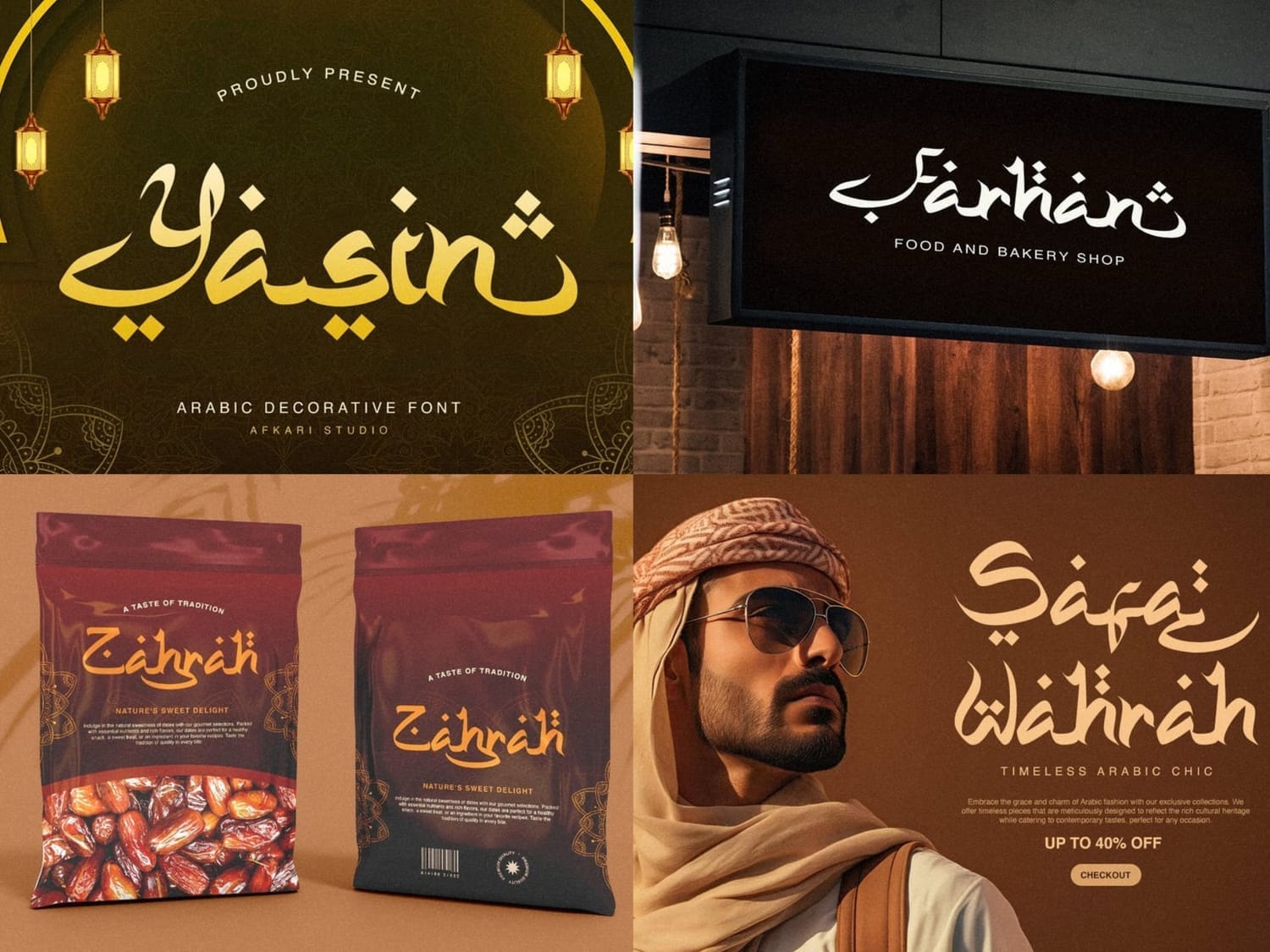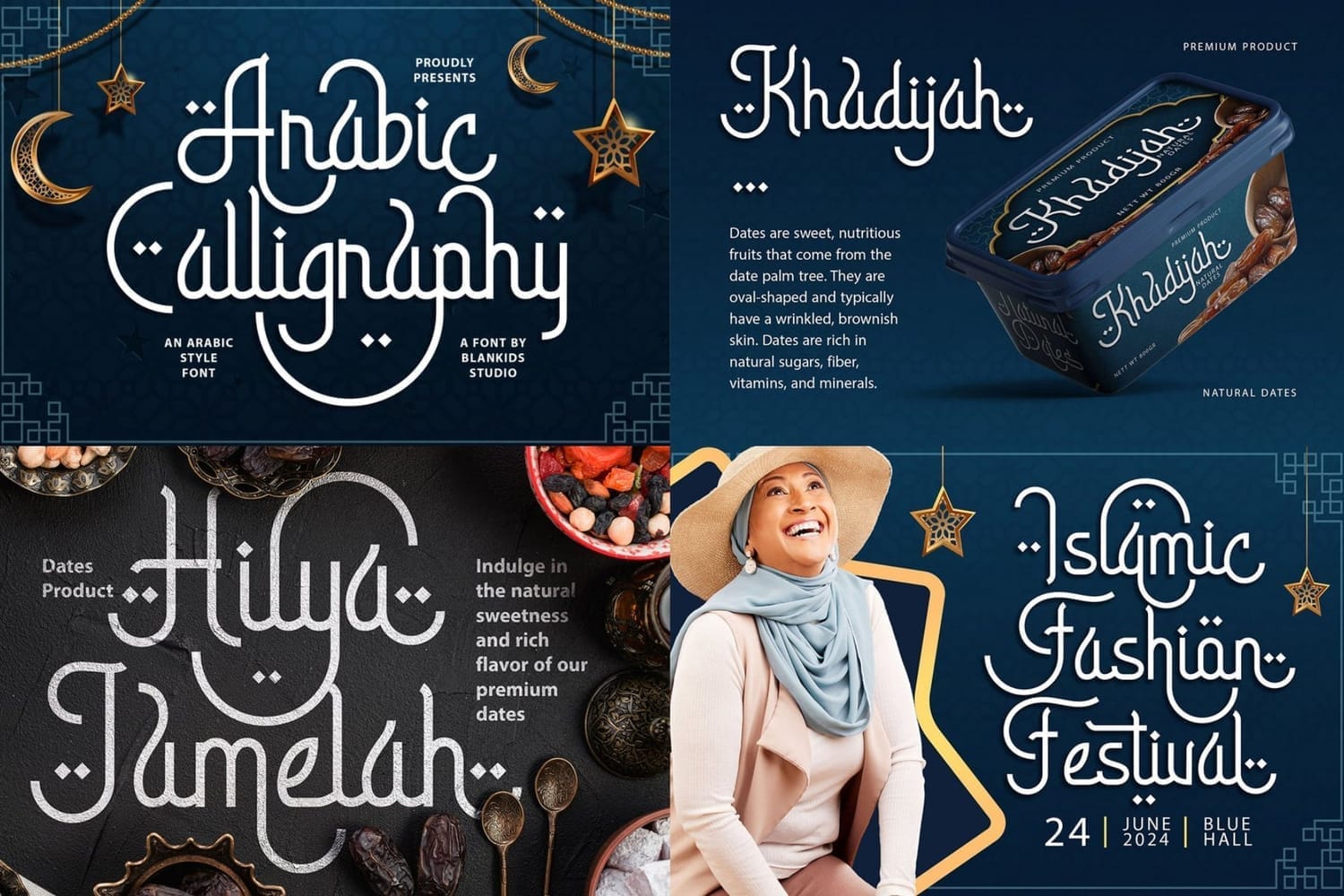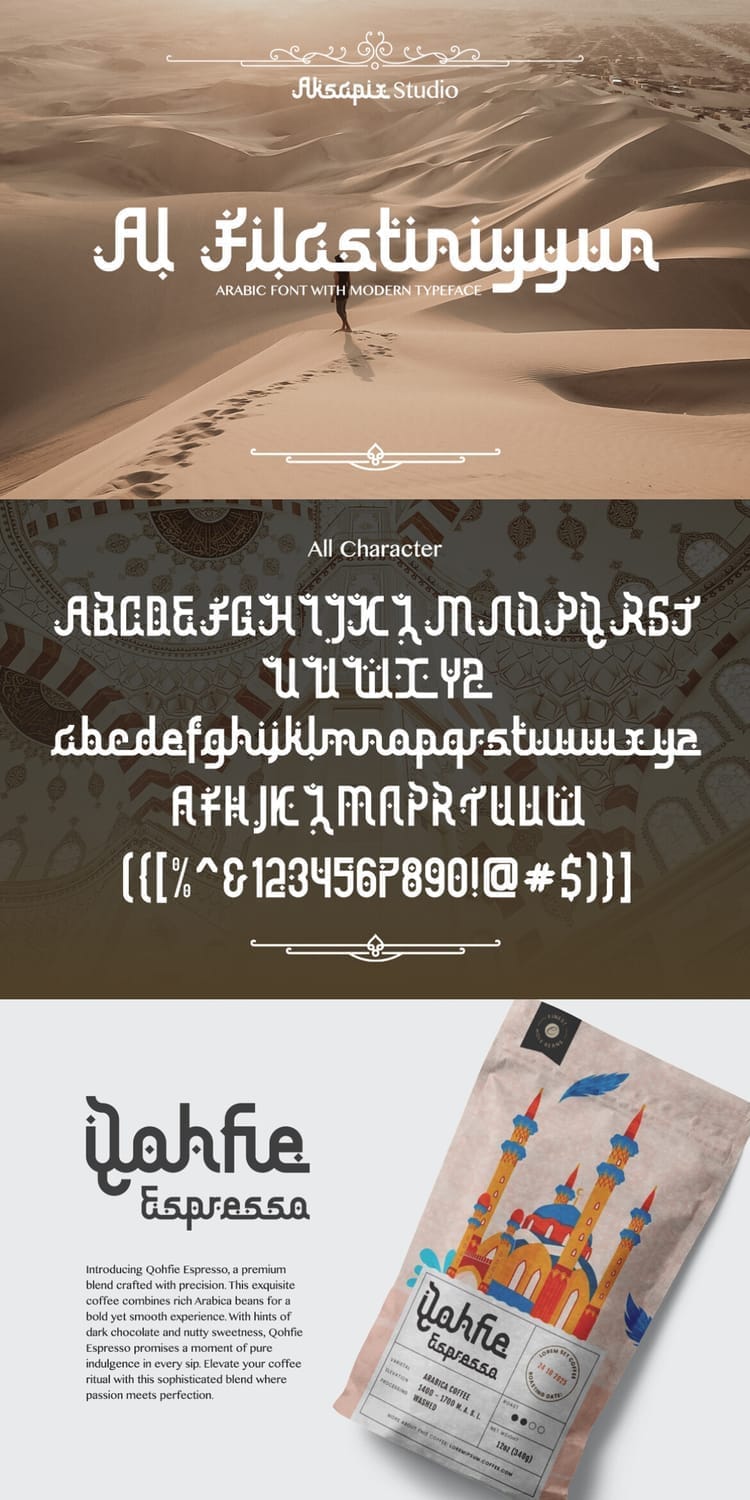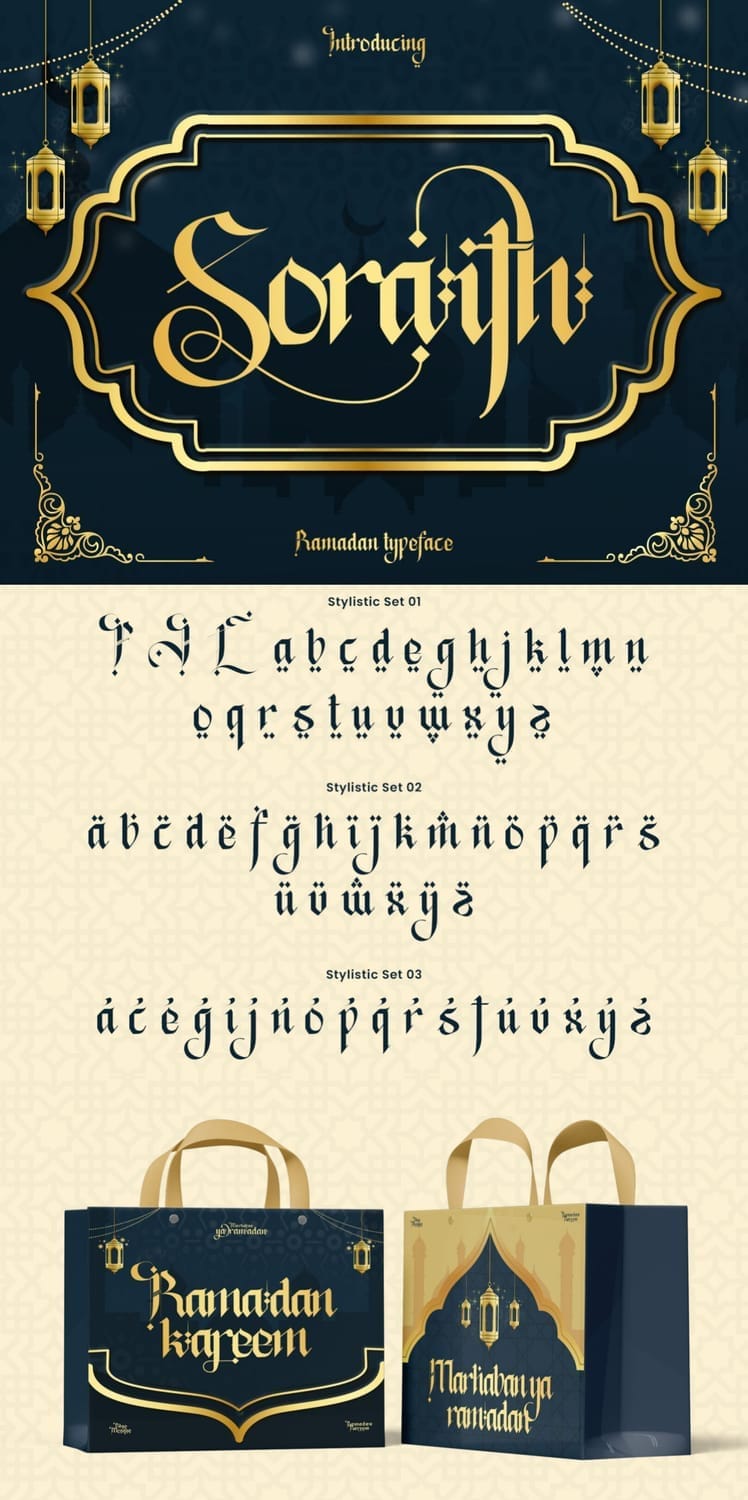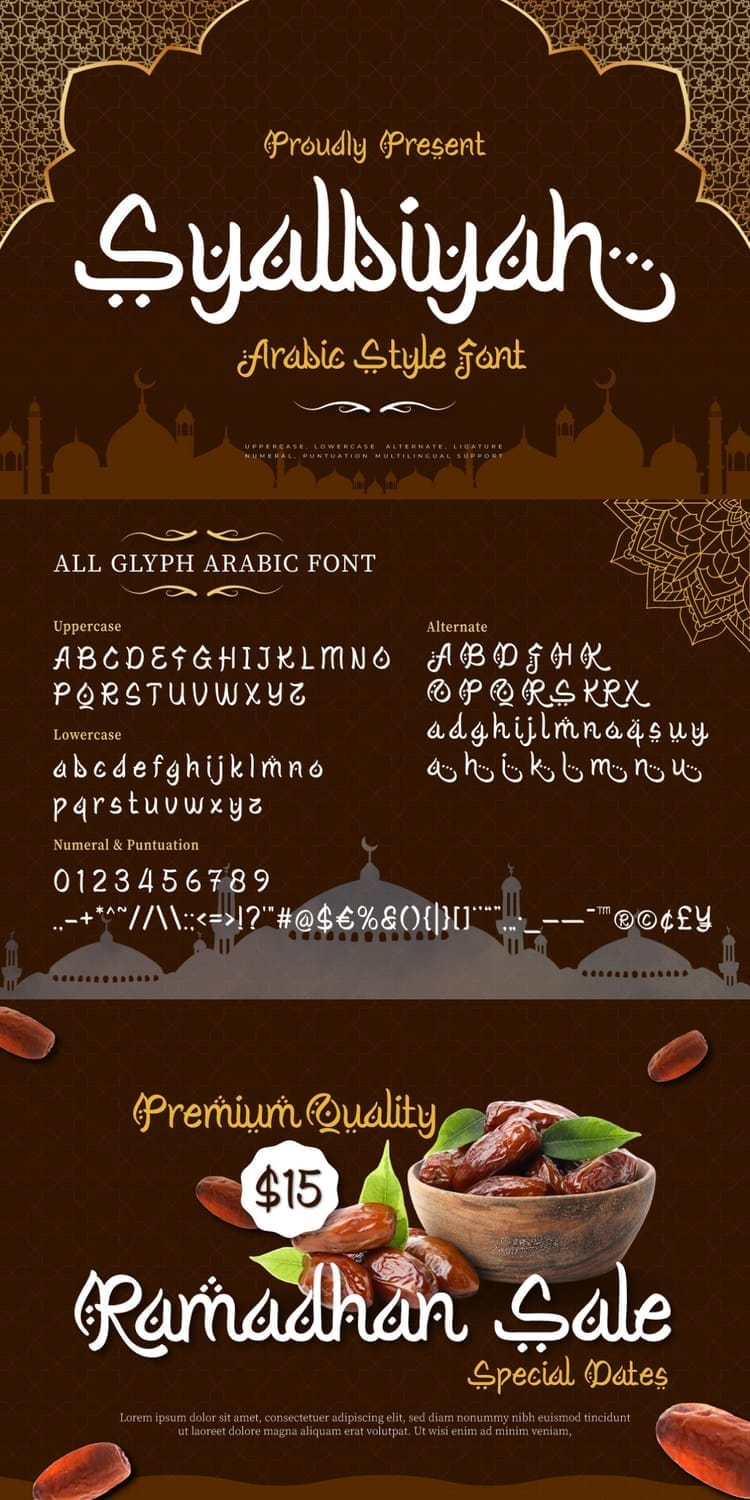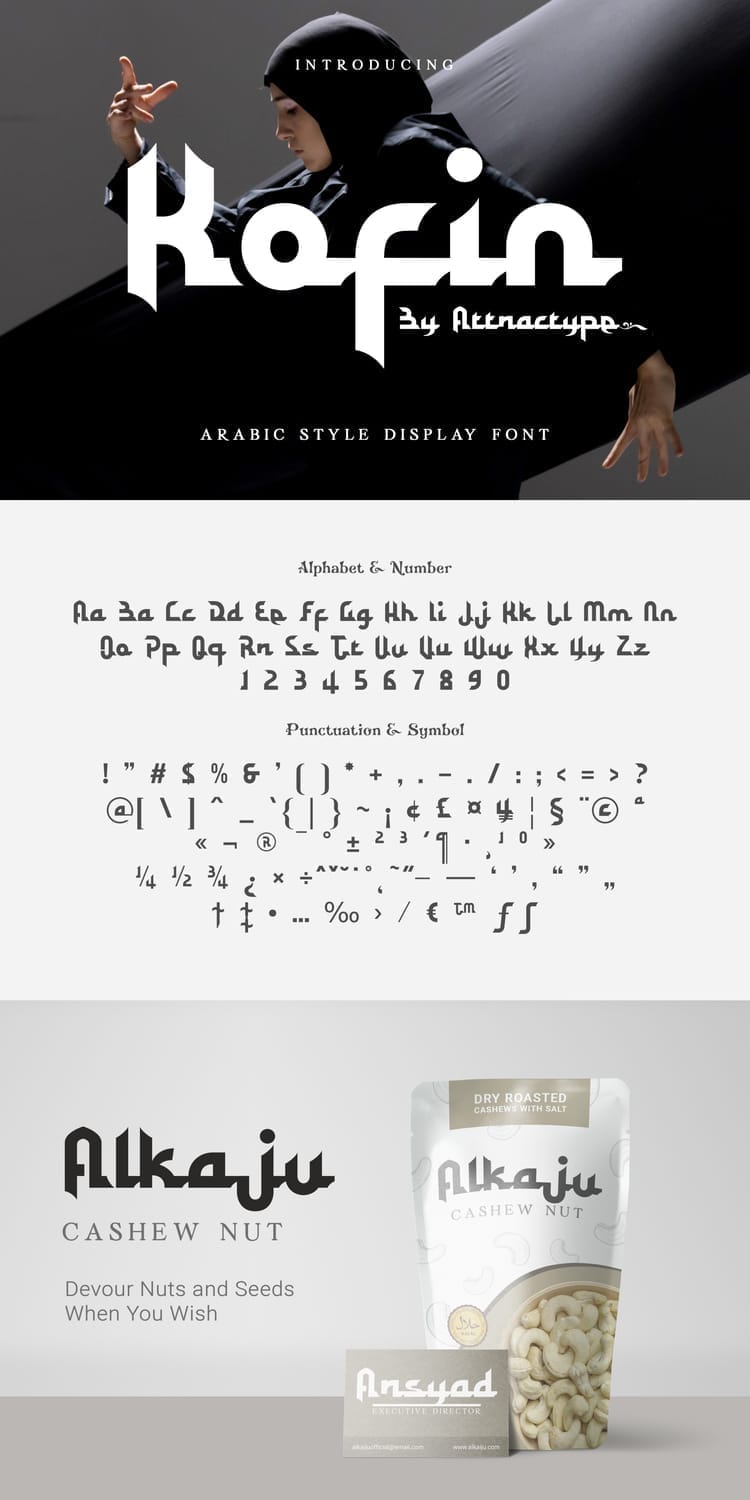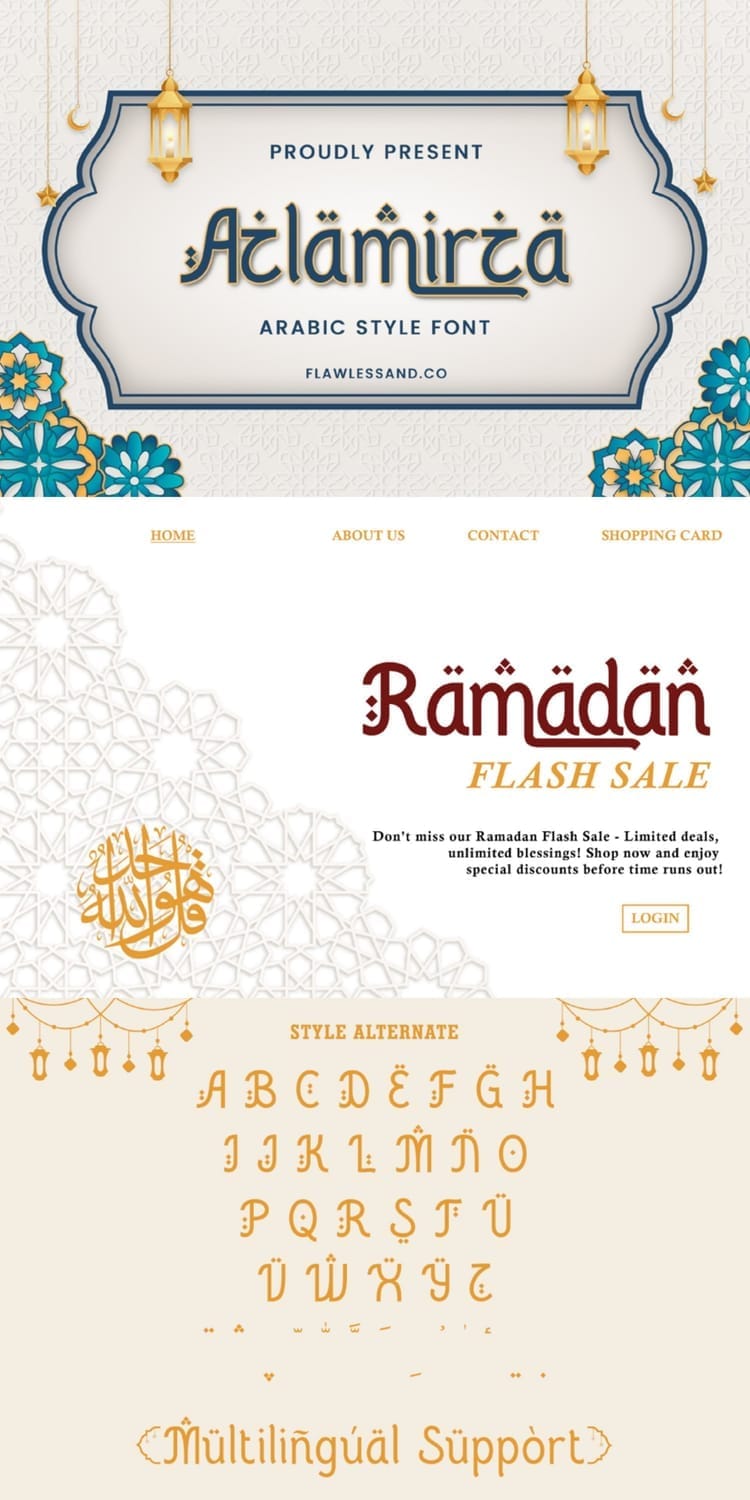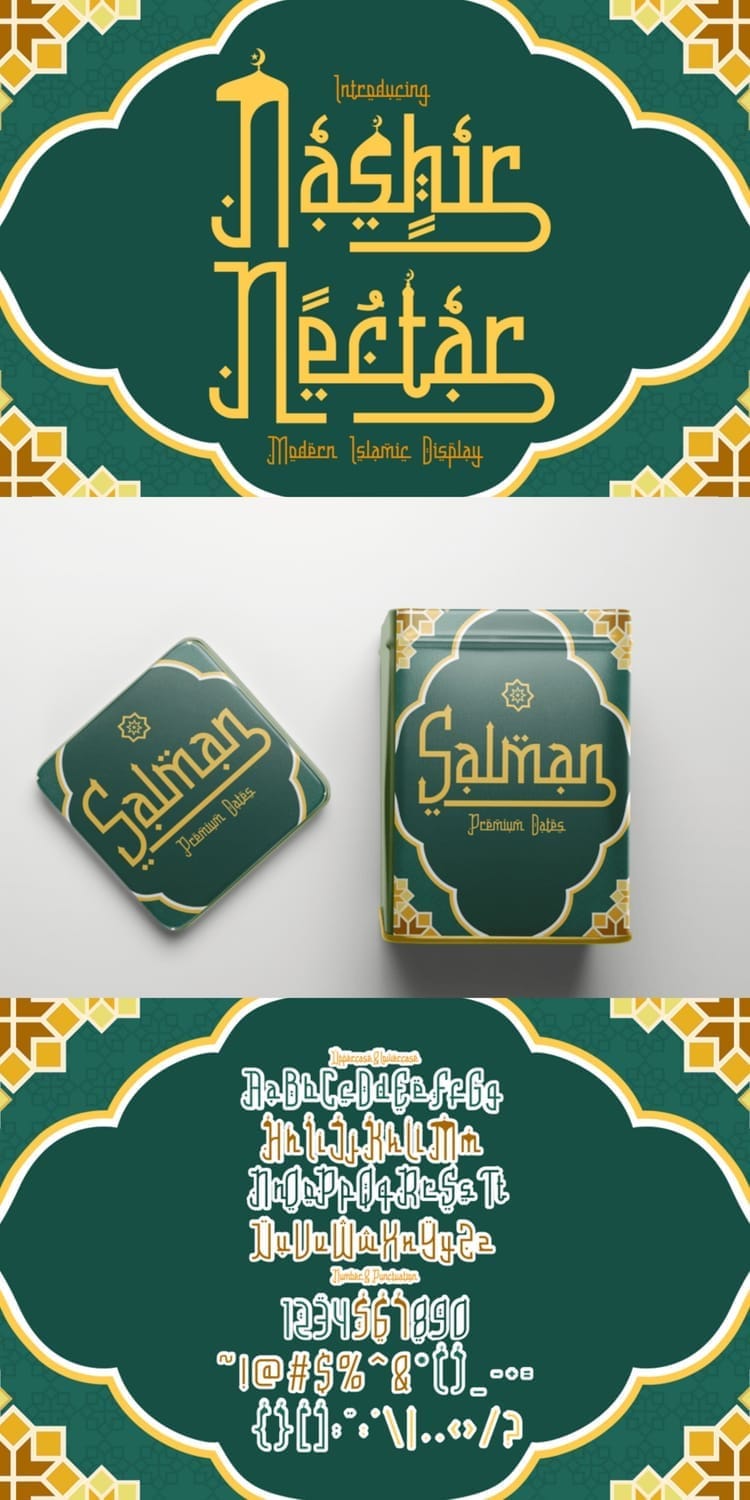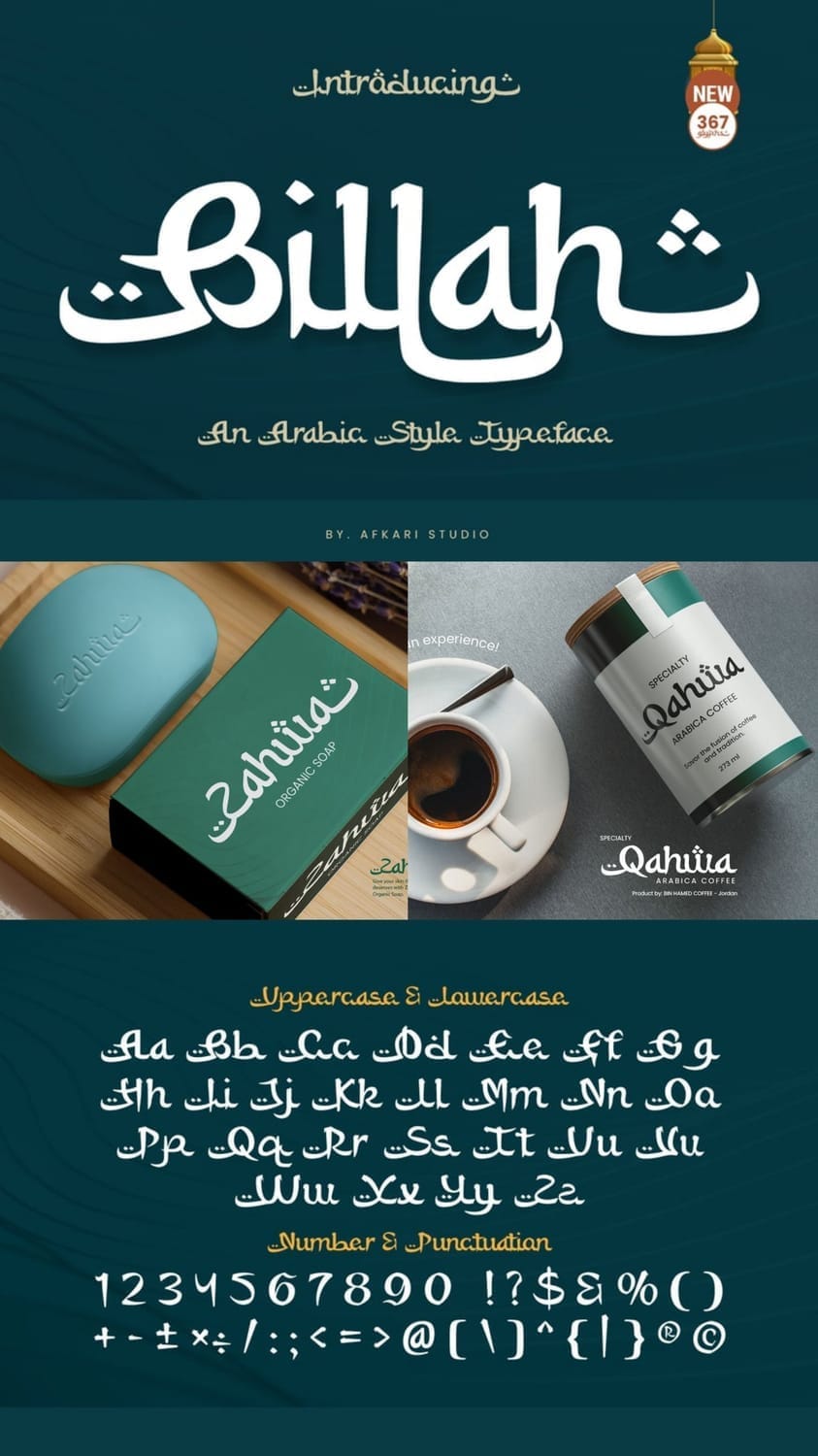
Arabic typography is a rich and diverse field, offering a unique blend of traditional elegance and modern versatility. For designers looking to infuse their projects with cultural authenticity and artistic flair, selecting the right Arabic font is crucial. These fonts are more than just aesthetic choices; they convey cultural nuances, historical depth, and a sense of timeless beauty that resonates deeply with audiences across various sectors.
Whether you're in branding, advertising, publishing, or web design, incorporating authentic Arabic styles can significantly enhance your visual communication and connect with a broader demographic. In this post, we'll provide thirteen examples of Arabic fonts and why they are so emblematic of the elegance and versatility found within Arabic typography.
Almalik is a unique, Arabic-style font by Ramzehhh, blending traditional Arabic letters with Latin typography in a modern monoline script. This elegant font features dynamic swashes, over 400 glyphs including alternates and ligatures, and multilingual support, making it ideal for branding, logo design, packaging, fashion, and Islamic-themed projects like Ramadan or Eid greetings. Its versatile design offers a sophisticated Middle Eastern aesthetic perfect for luxury and promotional materials.
Mustopha is a sophisticated Arabic-style font by Ramzehhh, expertly blending Latin classic handwriting with Arabic "hijaiyah" letters and Carolingian typography. This elegant cursive script offers a humanism feel with decorative long swashes and an extra set of alternate characters and Arabic symbols. Ideal for luxury branding, posters, greeting cards, wedding invitations, cosmetic labels, and book covers, Mustopha brings a timeless, classic typography aesthetic to diverse design themes, from Islamic art to general promotional materials.
The Khodijah font by Ramzehhh is a captivating Arabic-style display font crafted with a unique blend of digital flat-pen and gothic typography techniques, imbuing its letters with an elegant aesthetic. Inspired by Hijaiyah letters, this font is highly suitable for a wide range of Islamic and Middle Eastern content, including book covers, posters, flyers, banners, t-shirts, logos, and branding. Khodijah boasts robust OpenType features such as alternates, swashes, and ligatures, enhancing its versatility for various advertising and promotional needs, including Ramadan and wedding themes.
Saleha by Afkari Studio is a new Arabic-style display typeface perfect for Ramadan and other Islamic or Arabic-themed graphic designs. This font provides an authentic Arabic feel using Latin characters, making it internationally accessible. With uppercase, lowercase, numbers, punctuation, special alternates, and ligatures, Saleha is highly versatile for branding, product packaging, quotes, flyers, posters, logotypes, apparel, book covers, and advertising. It's compatible with both PC & Mac and works seamlessly across major design software, including Adobe products and Microsoft Word, with multilingual support.
Kahlil by typefactoryco is a modern Arabic font inspired by Middle Eastern aesthetics but designed with simplicity for diverse applications. This well-balanced font includes stylistic sets, alternates, and ligatures, along with multilingual support. Perfect for creative titling on both web and print, Kahlil excels in scroll text, readable blocks of copy, and headings, making it ideal for logotypes, magazine layouts, menus, posters, wedding invitations, and travel logos, offering an elegant and luxurious feel.
Labaniy by typefactoryco is an Arabic display font inspired by traditional Arabic calligraphy, featuring graceful curves and intricate details. This versatile font, offering uppercase, lowercase, symbols, punctuation, numerals, ligatures, alternates, and multilingual support, adds a touch of cultural authenticity and timeless elegance to any design. Perfect for branding, editorial layouts, event invitations, and digital artworks, Labaniy ensures your projects stand out with mesmerizing beauty and a traditional flair.
Shalwa by AnxoDesign is a stylish, elegant, and futuristic Arabic-style display font perfect for a wide range of modern design projects. This versatile serif font is ideal for logo branding, photography watermarks, invitations, visiting cards, advertisements, product designs, stationery, wedding designs, labels, product packaging, and special events. With its unique Arabic influence, Shalwa adds a distinctive and contemporary touch to any creative endeavor.
Mahabbah by agnyhasya-studio is a stunning Arabic-style display typeface ideal for Ramadan and other Islamic event design projects. This versatile font features unique alternates and ligatures for captivating typography, and offers multilingual support. It's perfect for logos, advertising, branding, posters, banners, product designs, art quotes, special events, and product packaging, enhancing any project with an authentic Arabic and calligraphic aesthetic.
Arabian Fairs by Saridezra is a delicate and minimalist Fauxlang Arabic font, meticulously inspired by the Arabic alphabet. This light and elegant typeface offers a distinct Arabian feel while remaining highly readable for all. It's versatile for various design purposes, including branding, logo design, wedding invitations, and occasional seasons like Ramadan and other Islamic holidays. The font also includes numbers, symbols, and multilingual support, making it a perfect choice for modern, classic, and feminine designs across magazines, posters, and fashion.